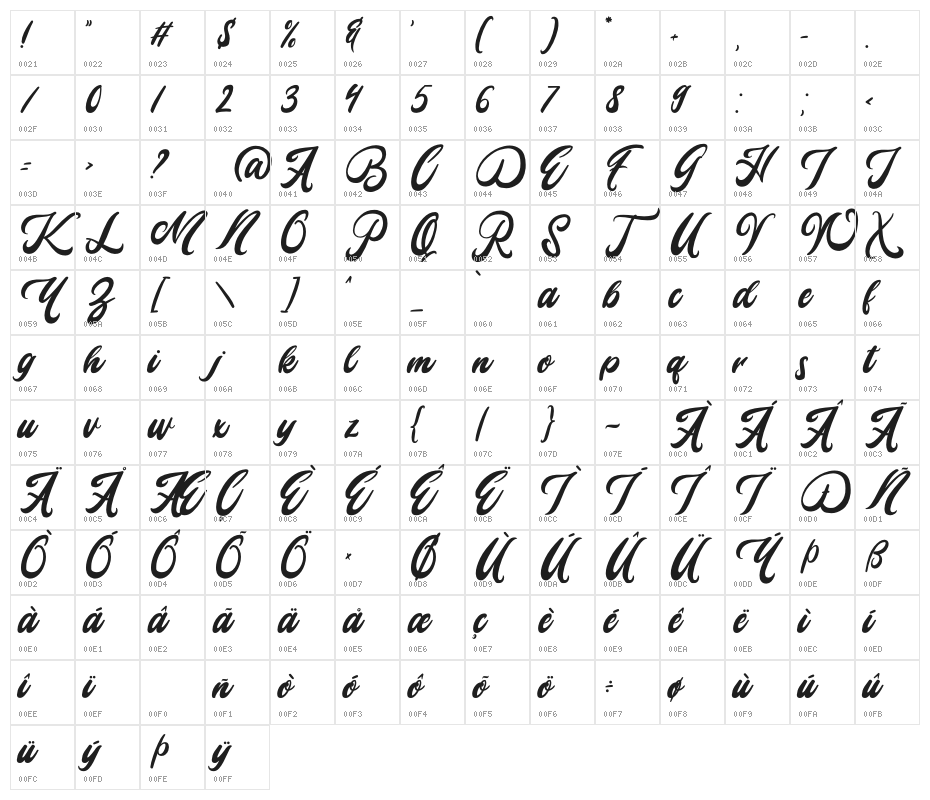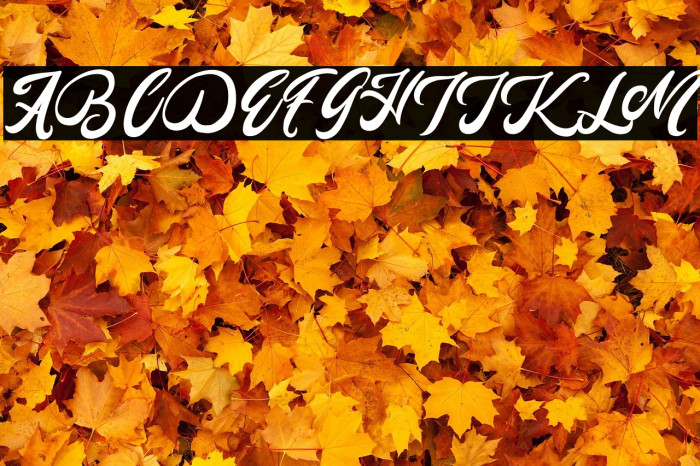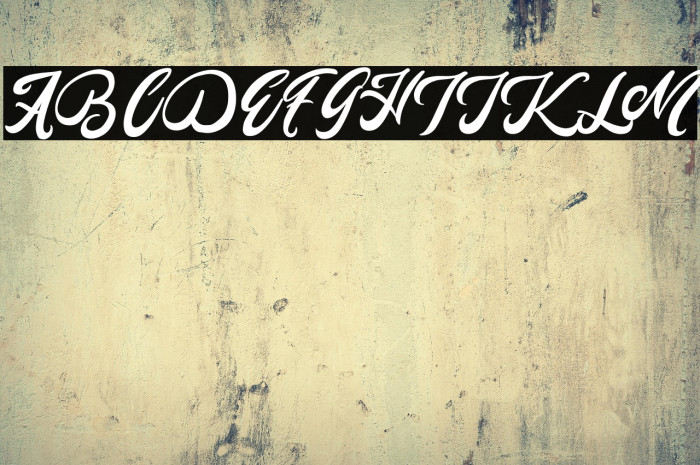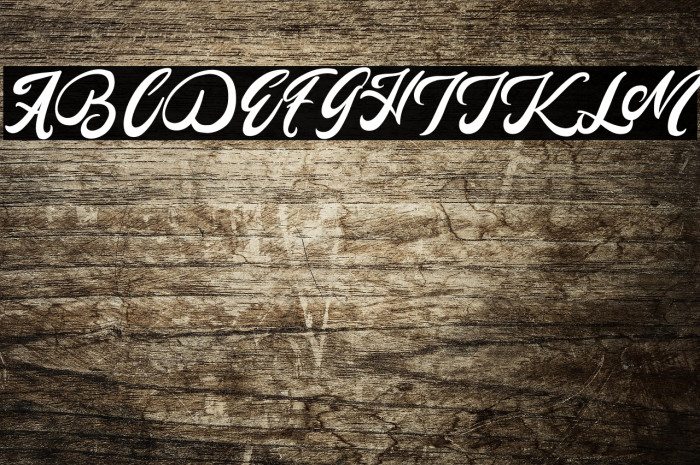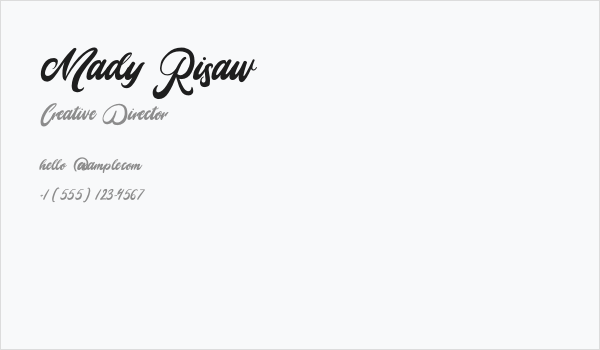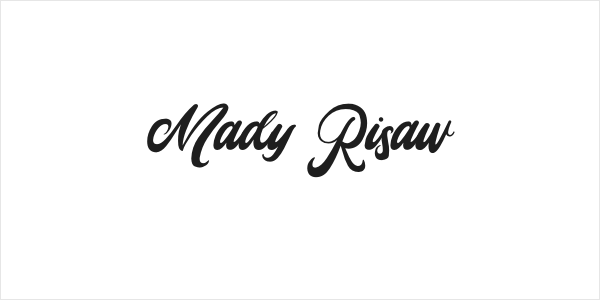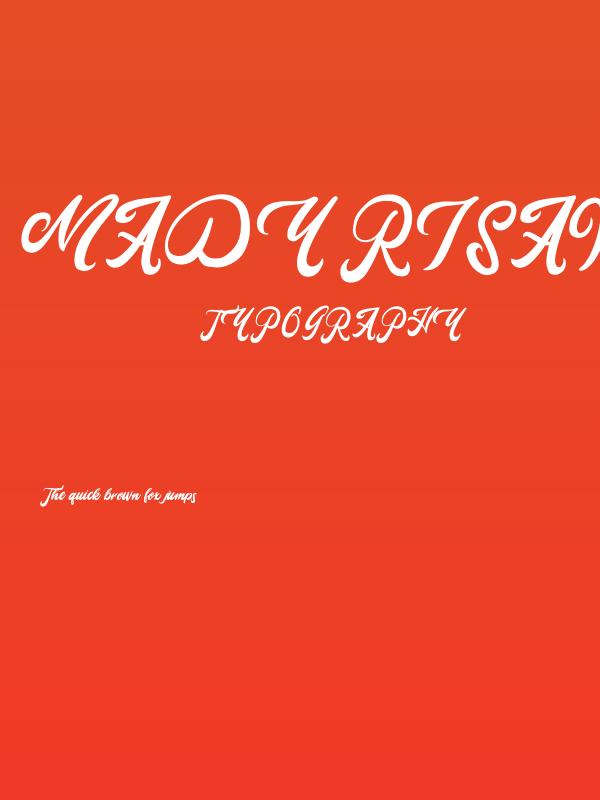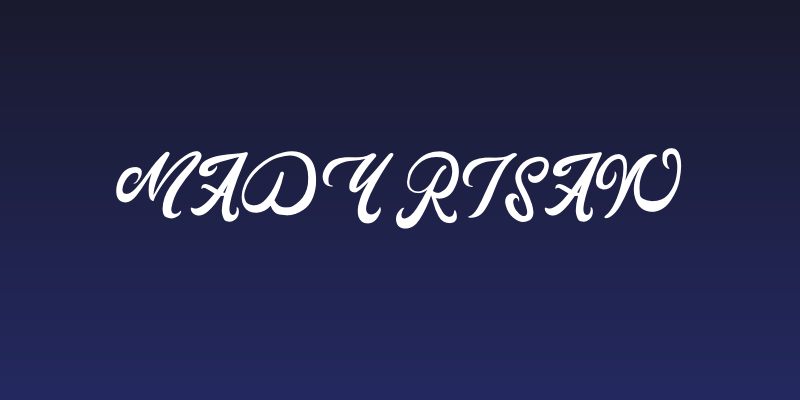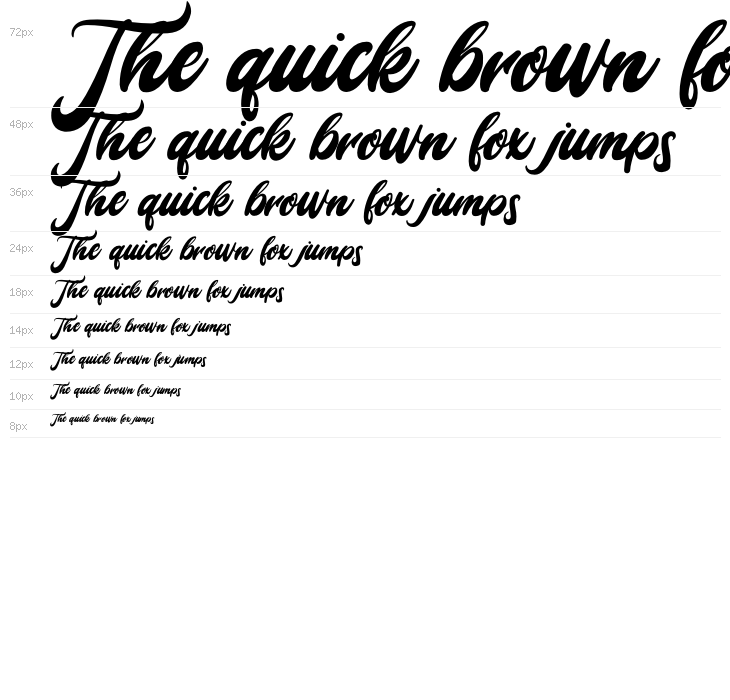
Mady Risaw Font
Mady Risaw Description
This font features a bold, cursive style with a flowing, handwritten appearance. The characters are connected, creating a seamless and elegant look. The uppercase letters are slightly larger and more ornate, while the lowercase letters maintain a consistent, smooth flow. The numbers and special characters are designed to match the overall style, with rounded edges and a playful yet sophisticated feel. This font exudes a sense of creativity and personal touch, making it ideal for projects that require a personal or artistic flair.
| Use Case | Logos, Invitations, Artistic projects |
| Proposed Projects | Ideal for wedding invitations, greeting cards, branding, and artistic projects. |